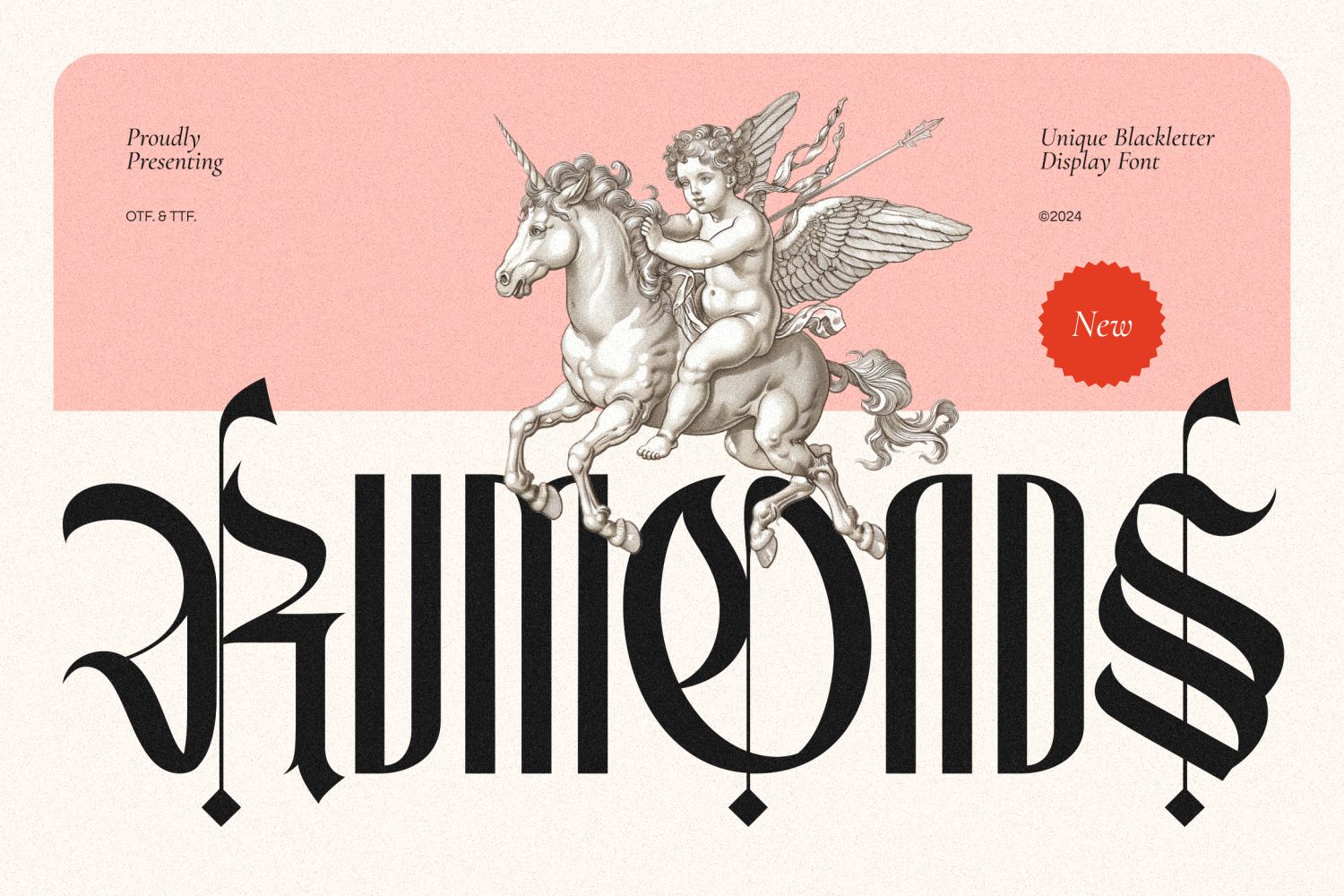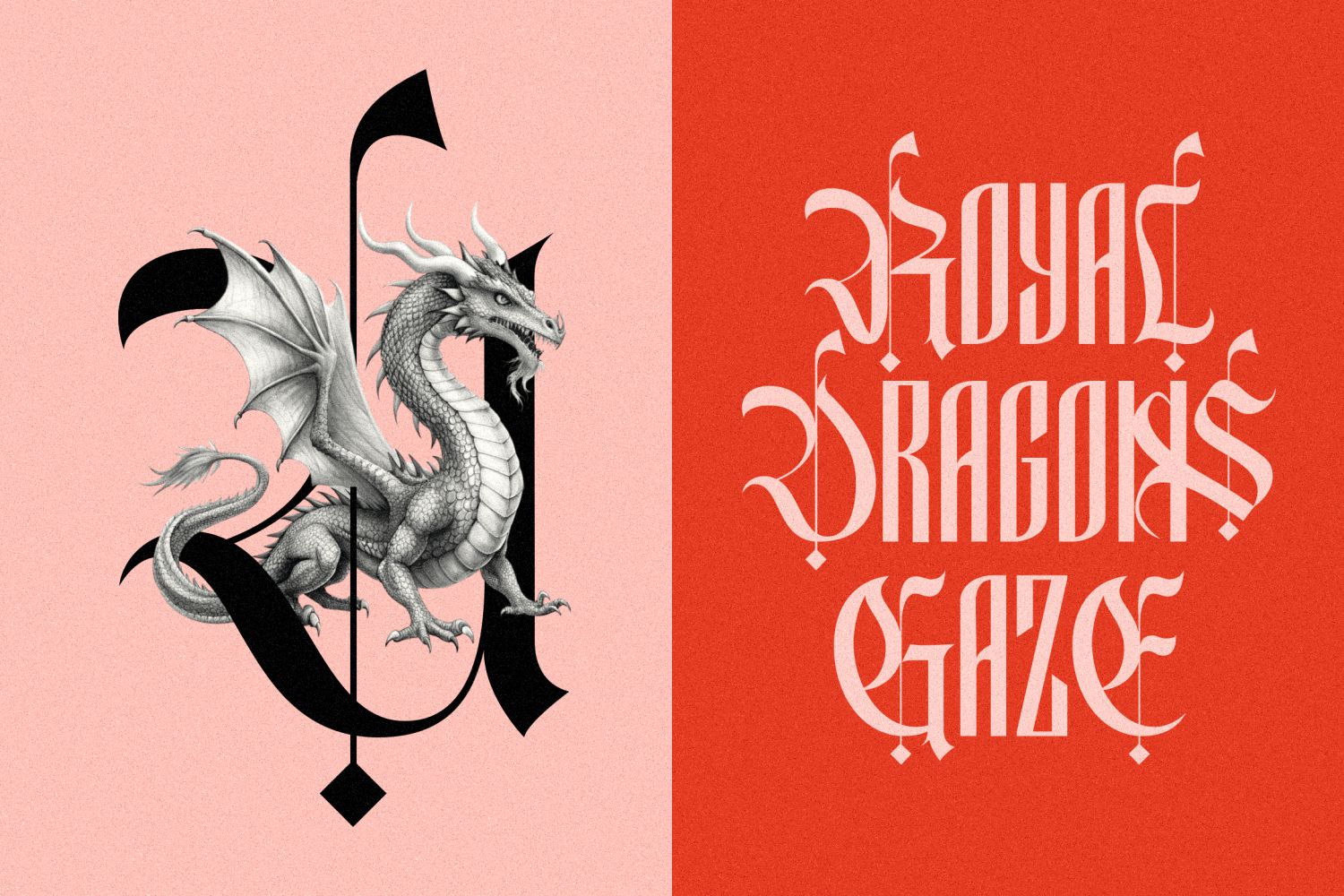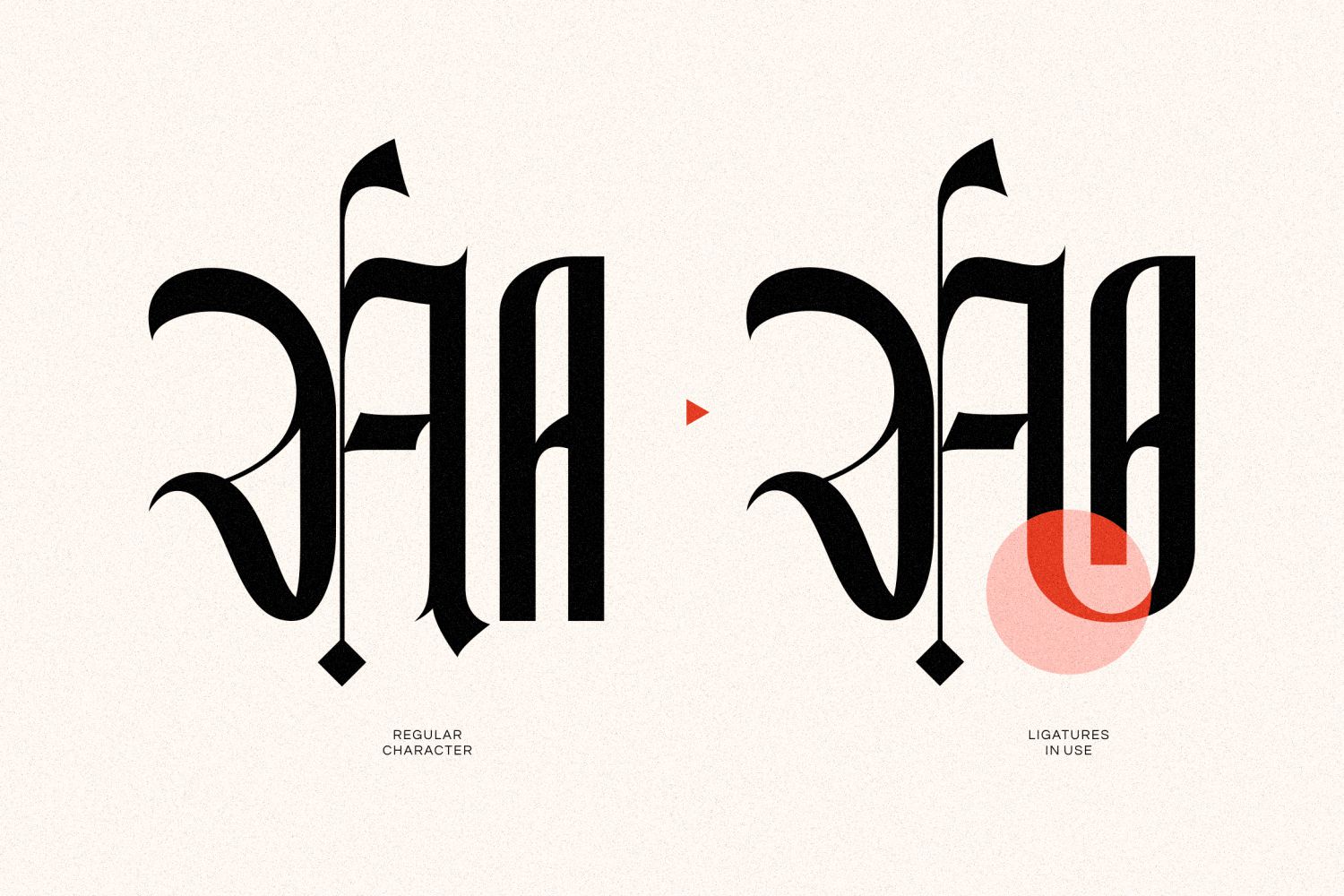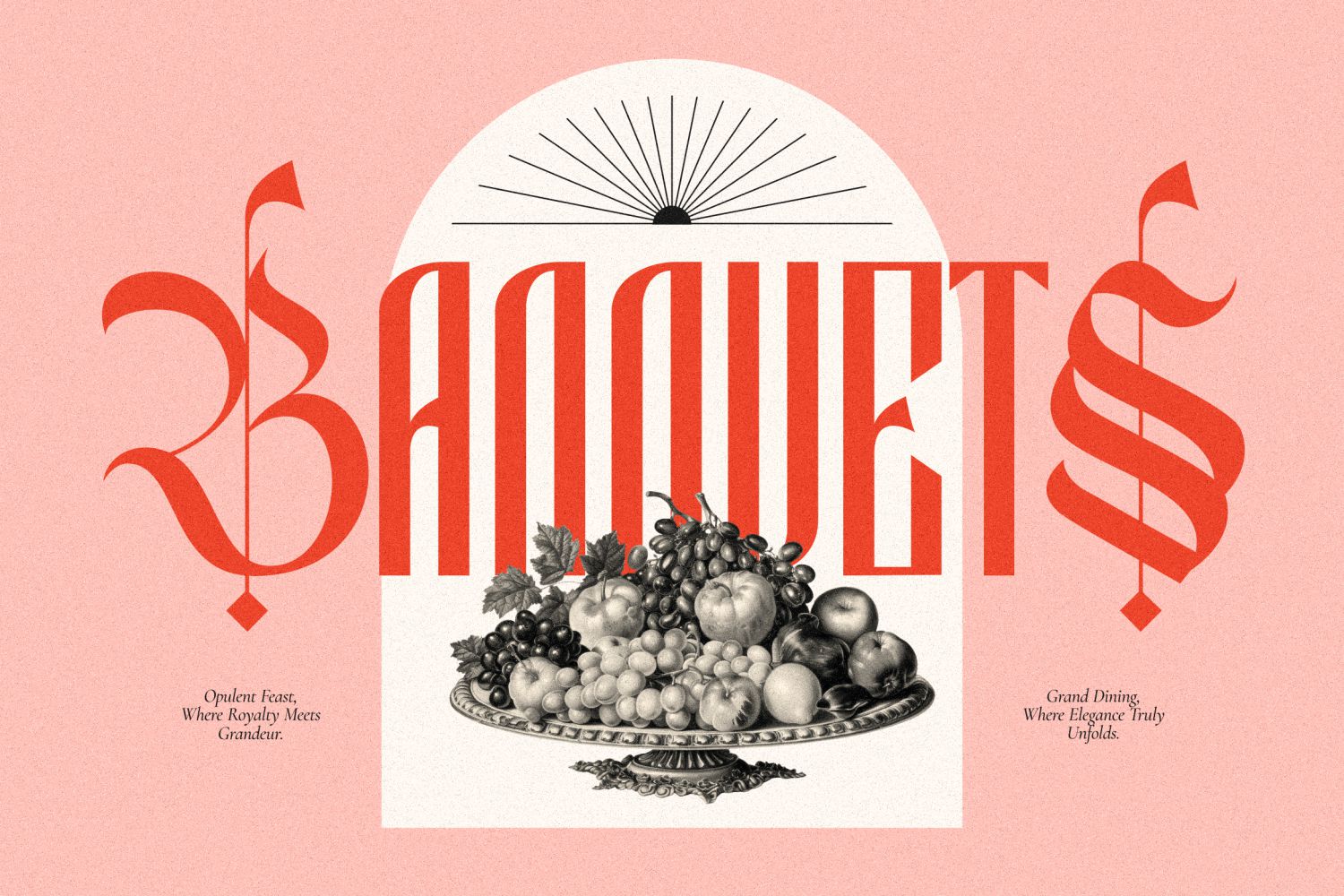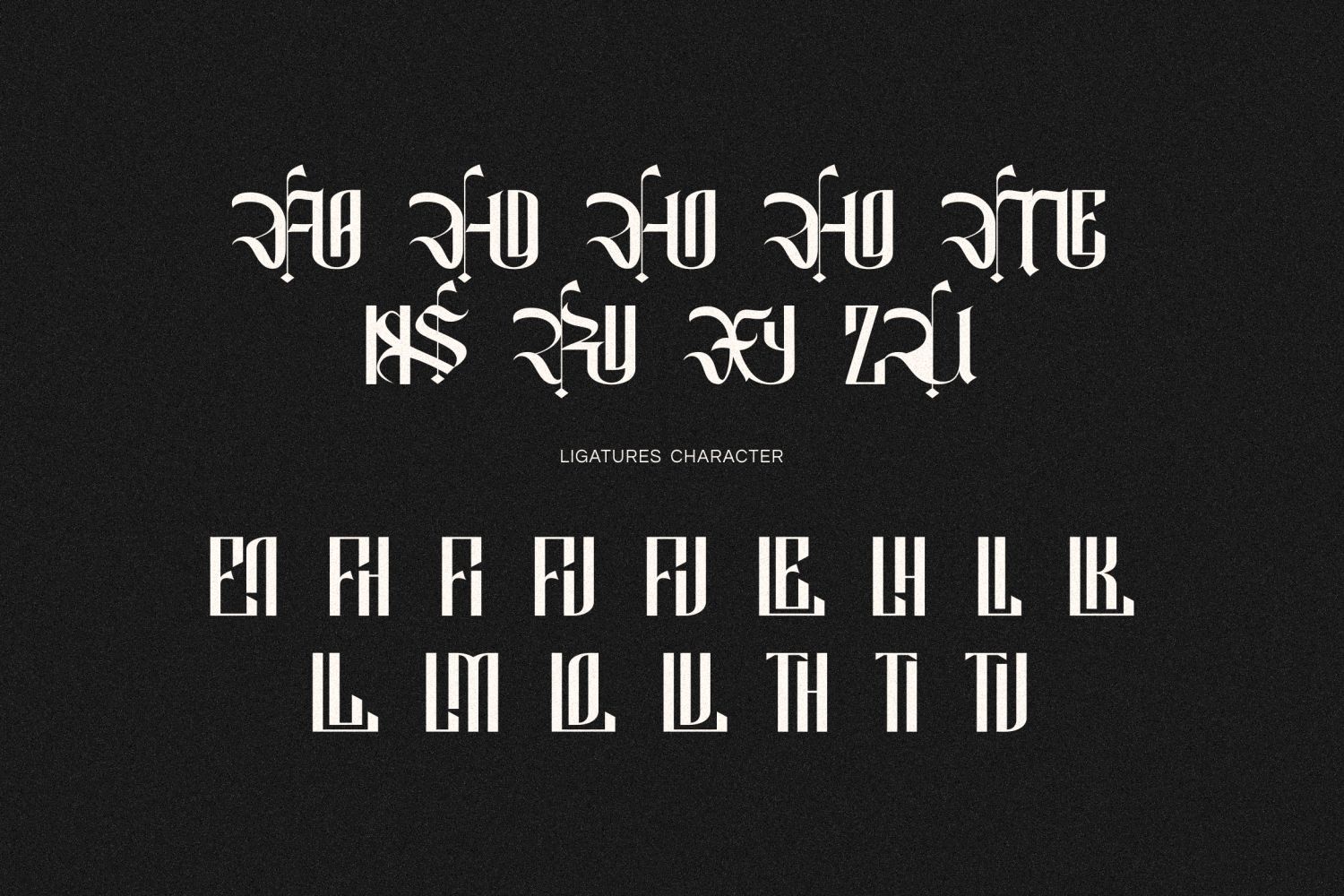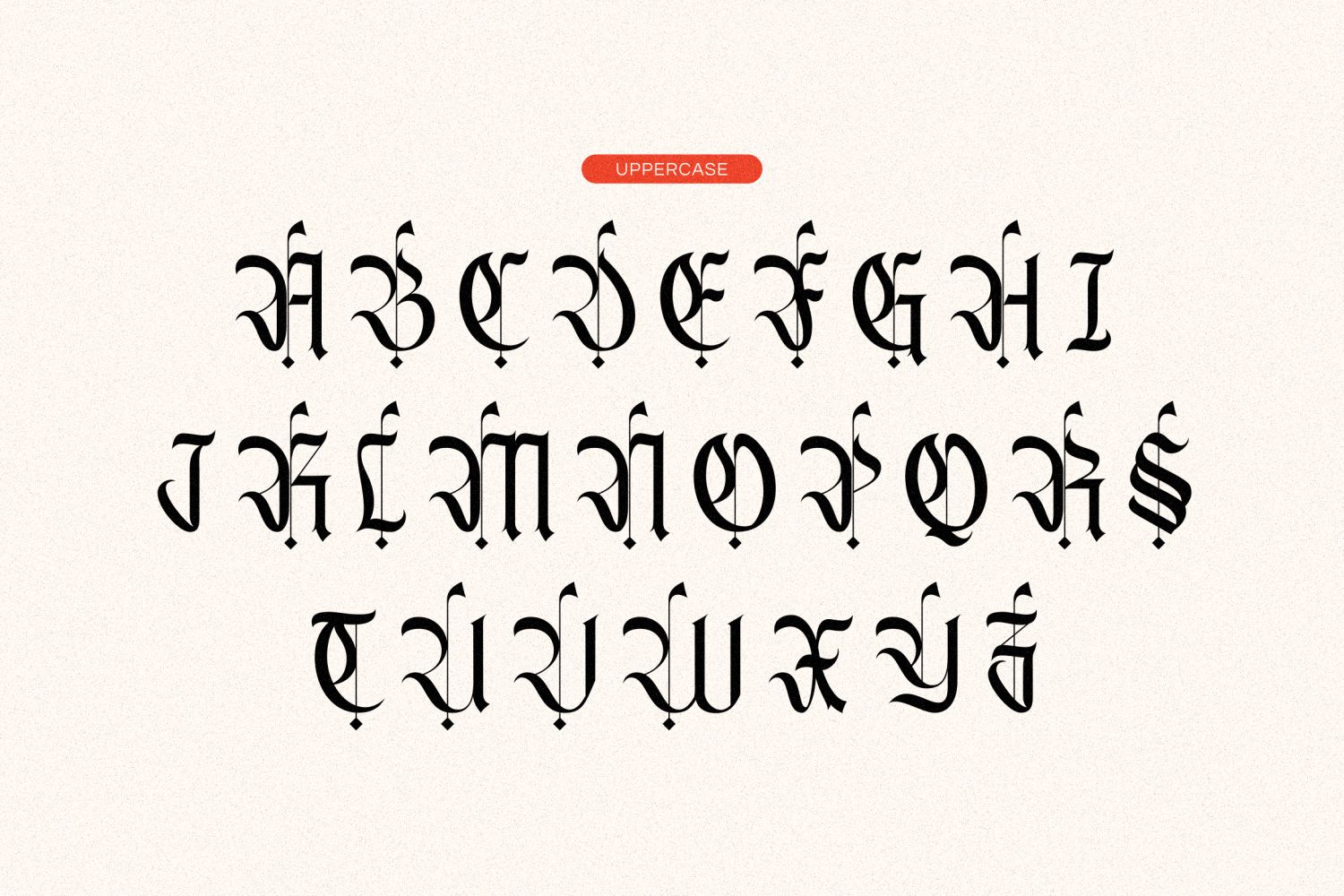
Rumonds is a unique blackletter display font that blends traditional gothic elegance with a fresh, contemporary twist. Its tall, elongated strokes and sharp ornamental details create a sense of grandeur, making it ideal for projects that demand both sophistication and bold visual impact. Perfect for luxury branding, editorial design, event posters, and high-fashion themes, Rumonds brings a regal and artistic flair to any composition.
Featuring exquisite ligatures, refined alternates, and a versatile character set, Rumonds offers endless creative possibilities for expressive typography. Whether used for ornate titles, vintage-inspired logos, or decorative layouts, this font stands out with its intricate letterforms and commanding presence. Its balance of historical charm and modern artistry ensures it remains memorable and timeless in every design application.